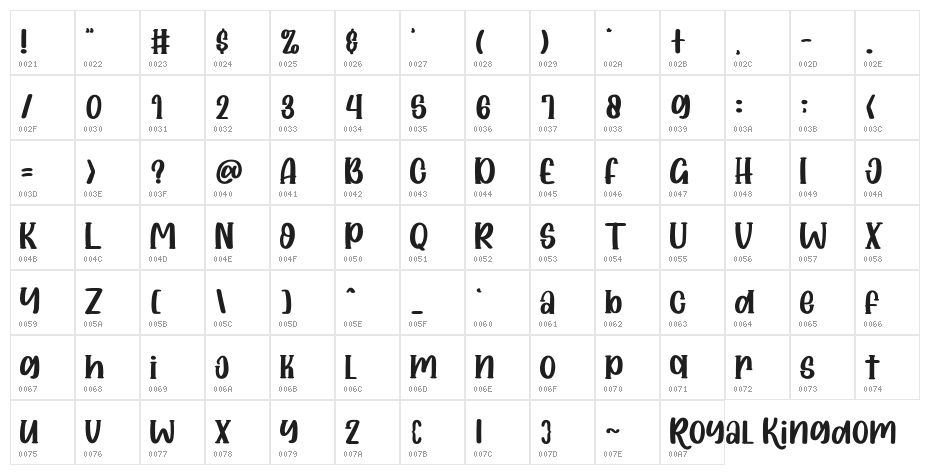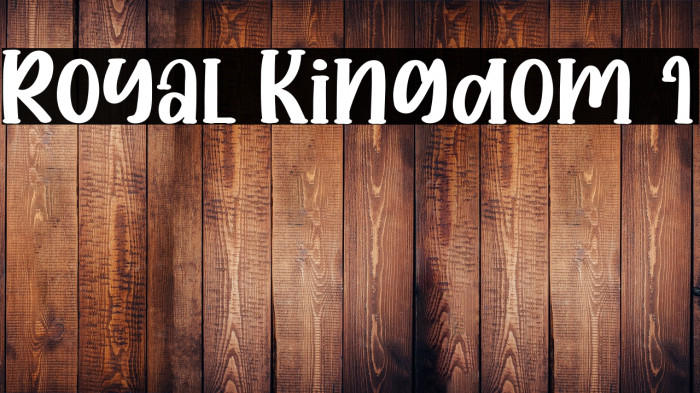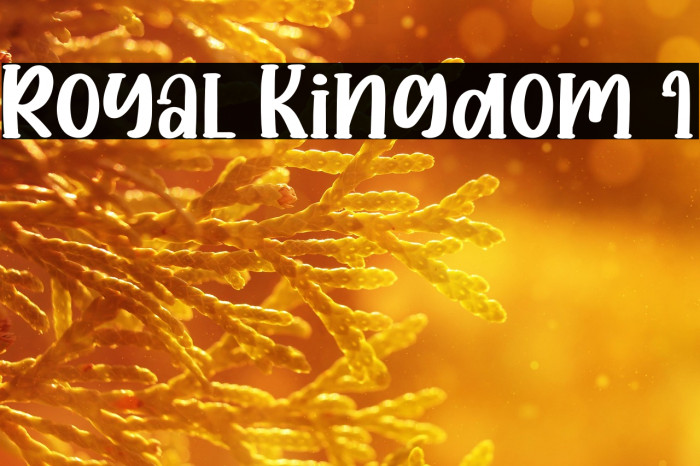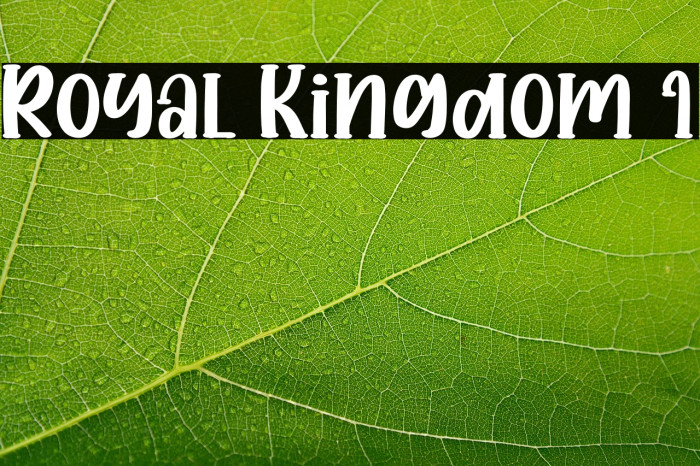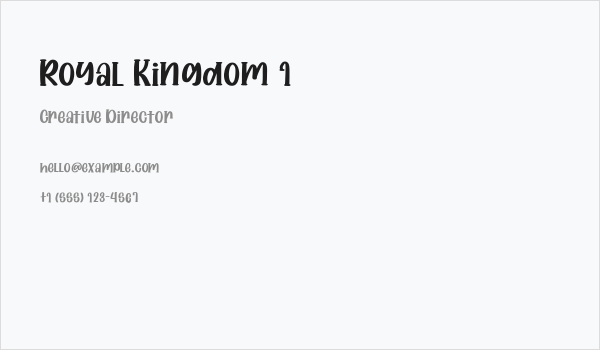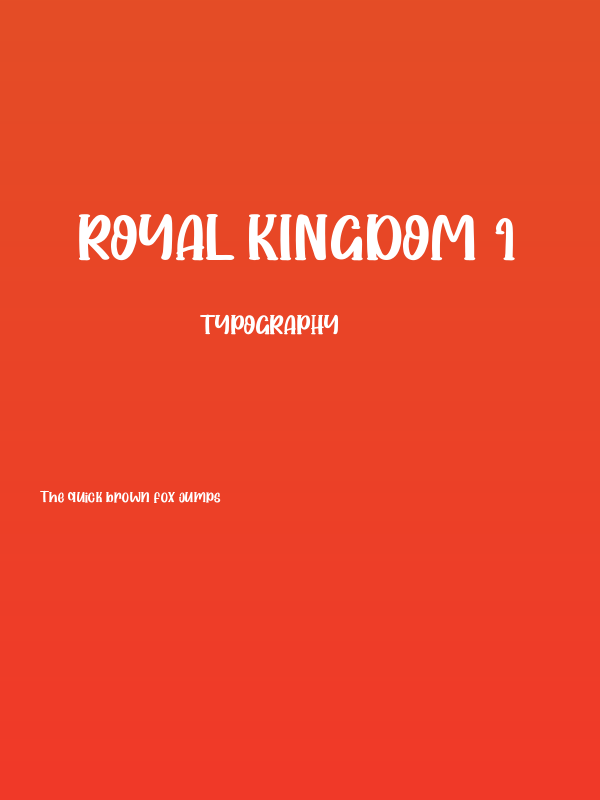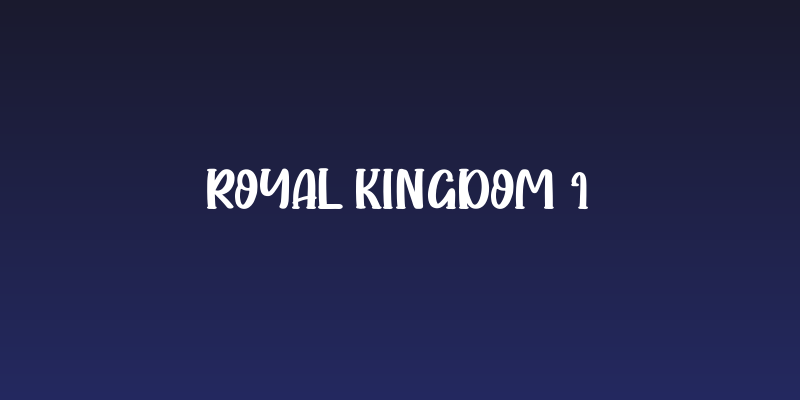
Royal Kingdom 1 Font
Royal Kingdom 1 Description
This font features a bold and playful script style with a distinctively whimsical flair. The characters are rounded and have a hand-drawn appearance, giving them a friendly and approachable feel. The uppercase and lowercase letters maintain a consistent style, with exaggerated curves and loops that add to the font's decorative nature. The numbers and special characters are equally stylized, ensuring a cohesive look across all elements. This font is perfect for projects that require a touch of creativity and fun, such as children's book covers, playful branding, or eye-catching headlines.
| Proposed Projects | Ideal for children's books, playful branding, and decorative headlines. |